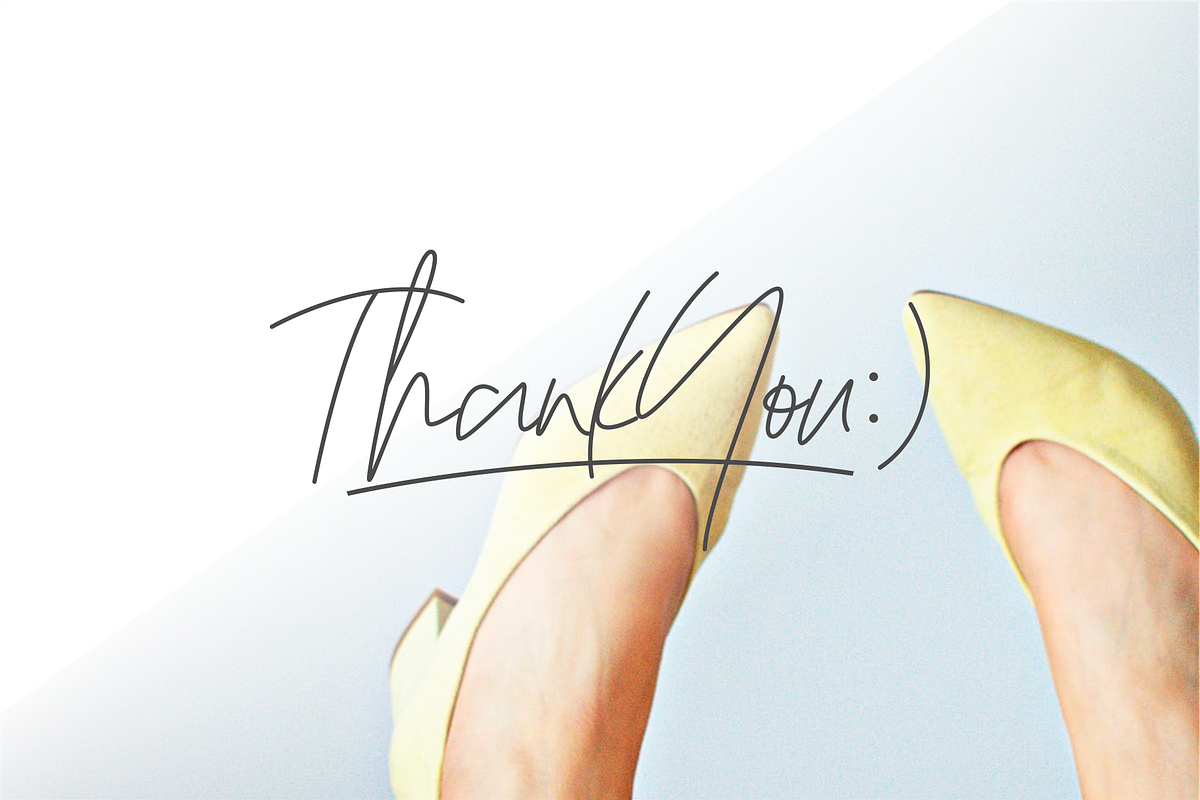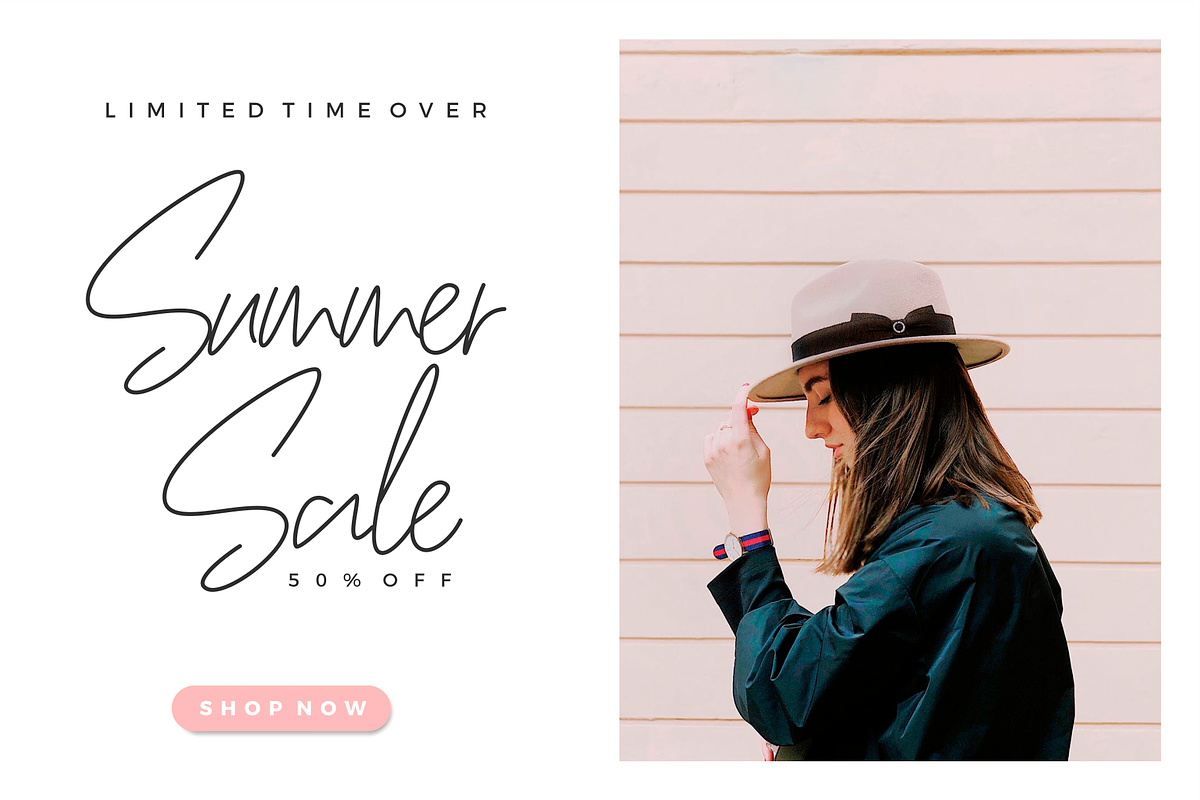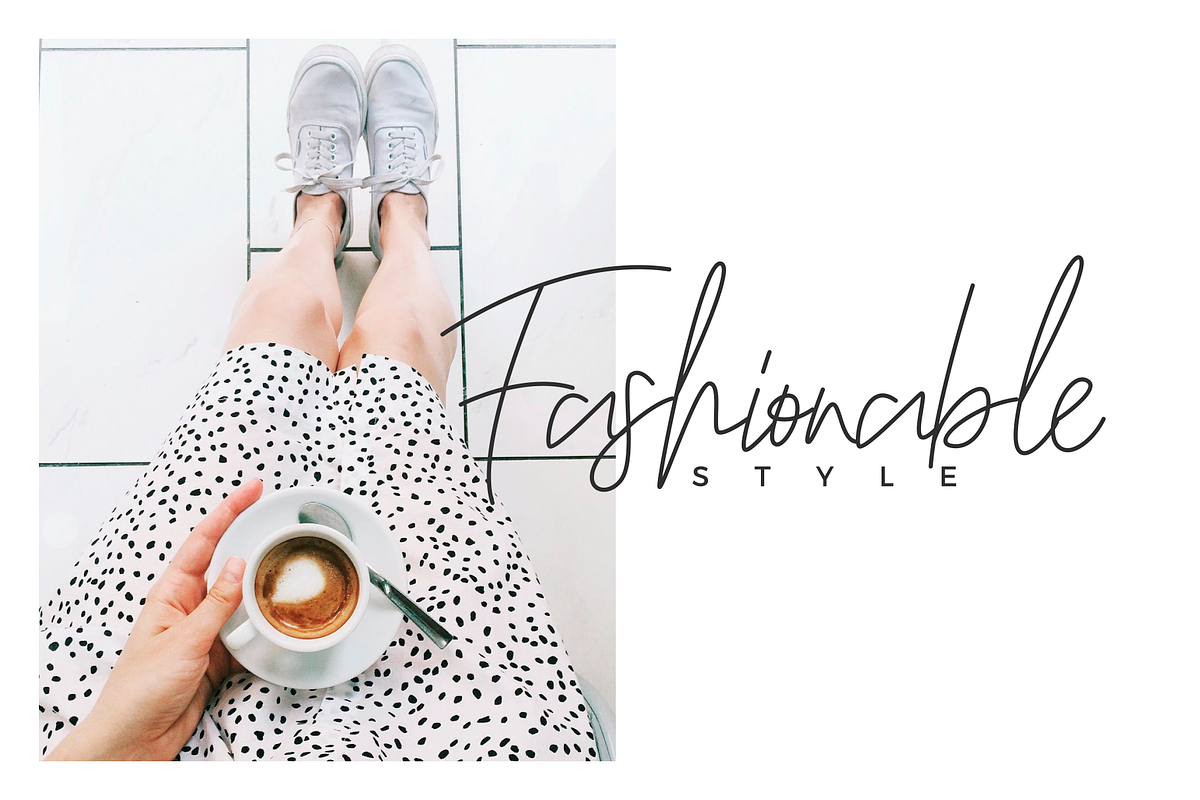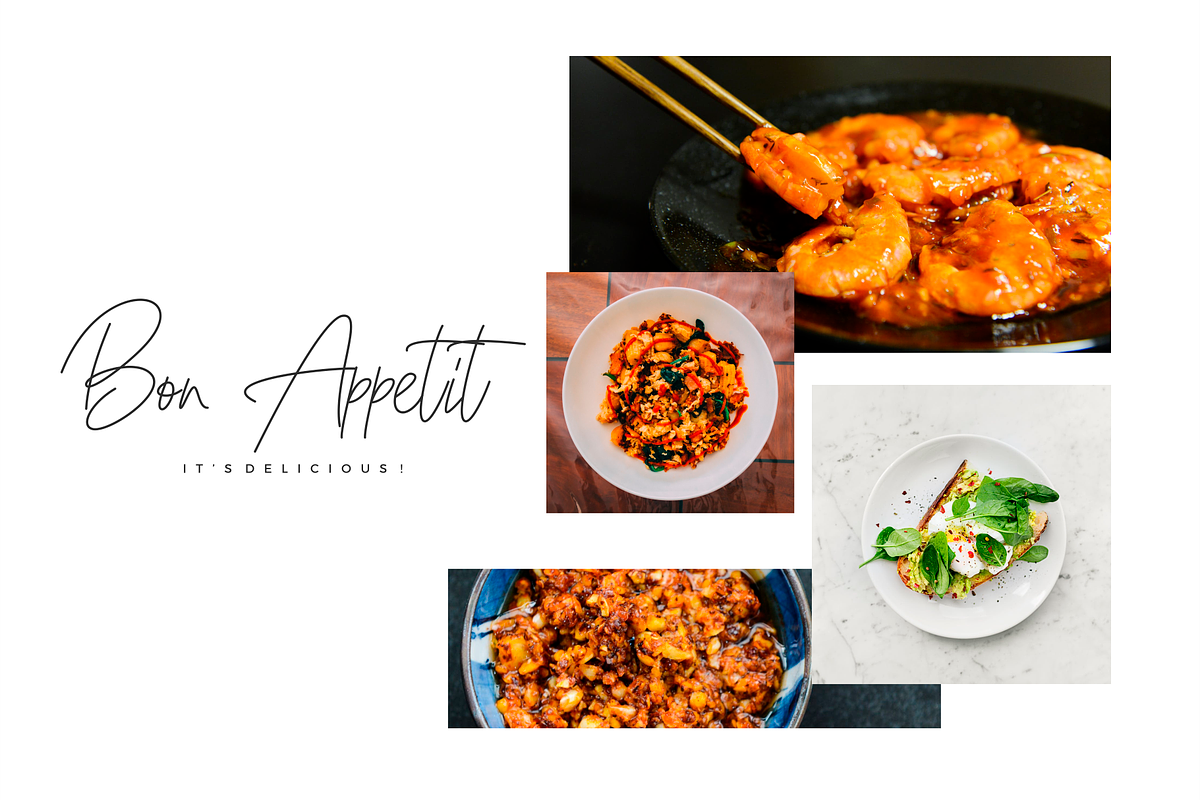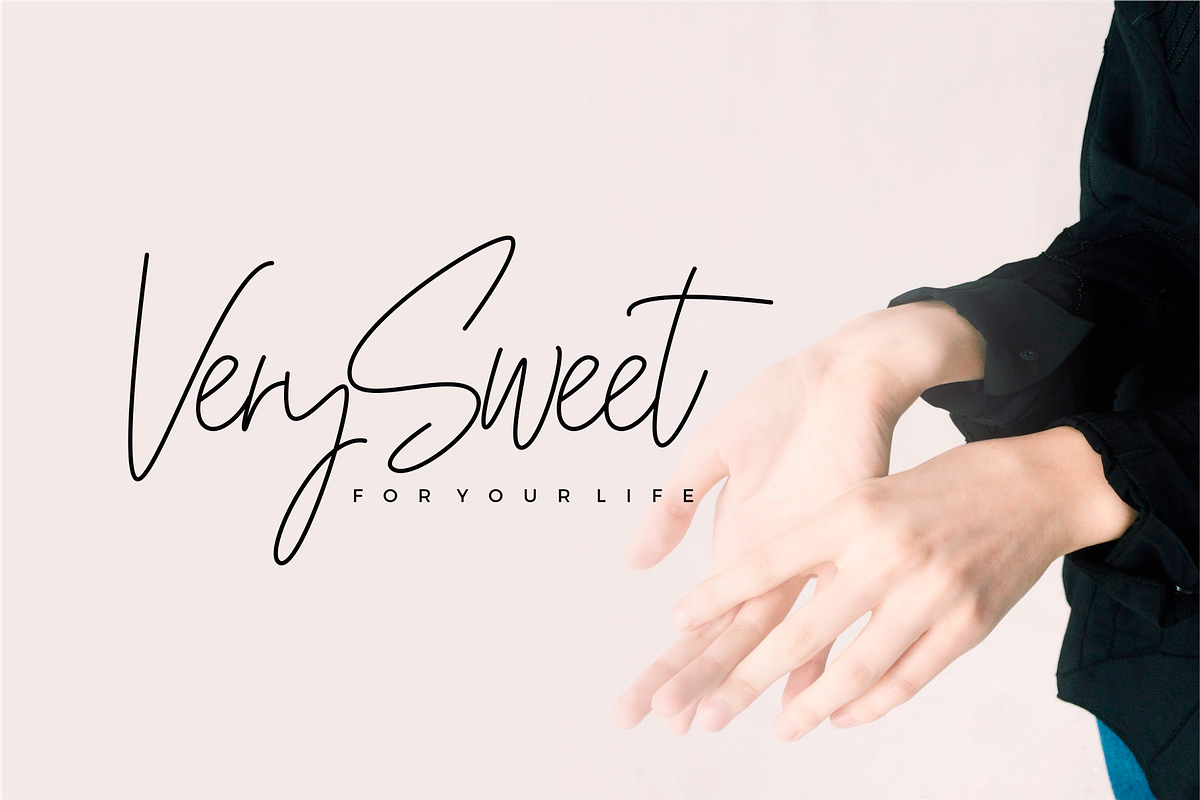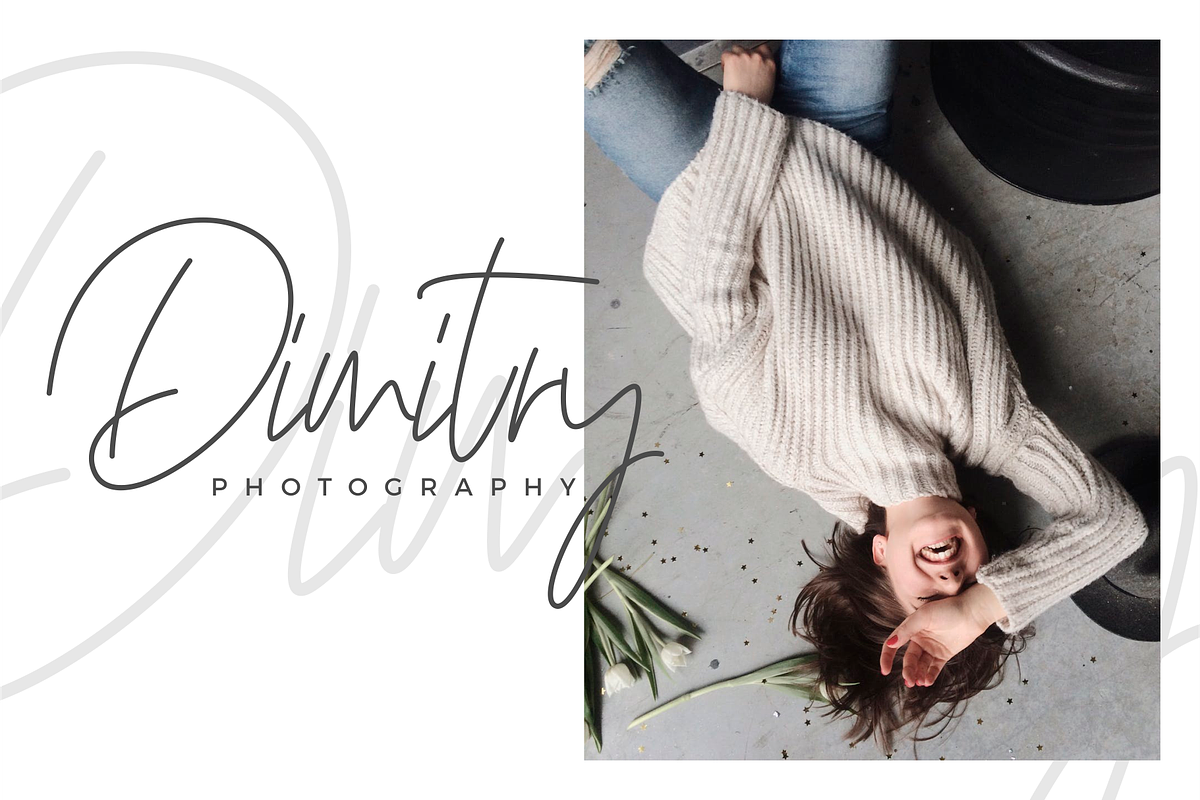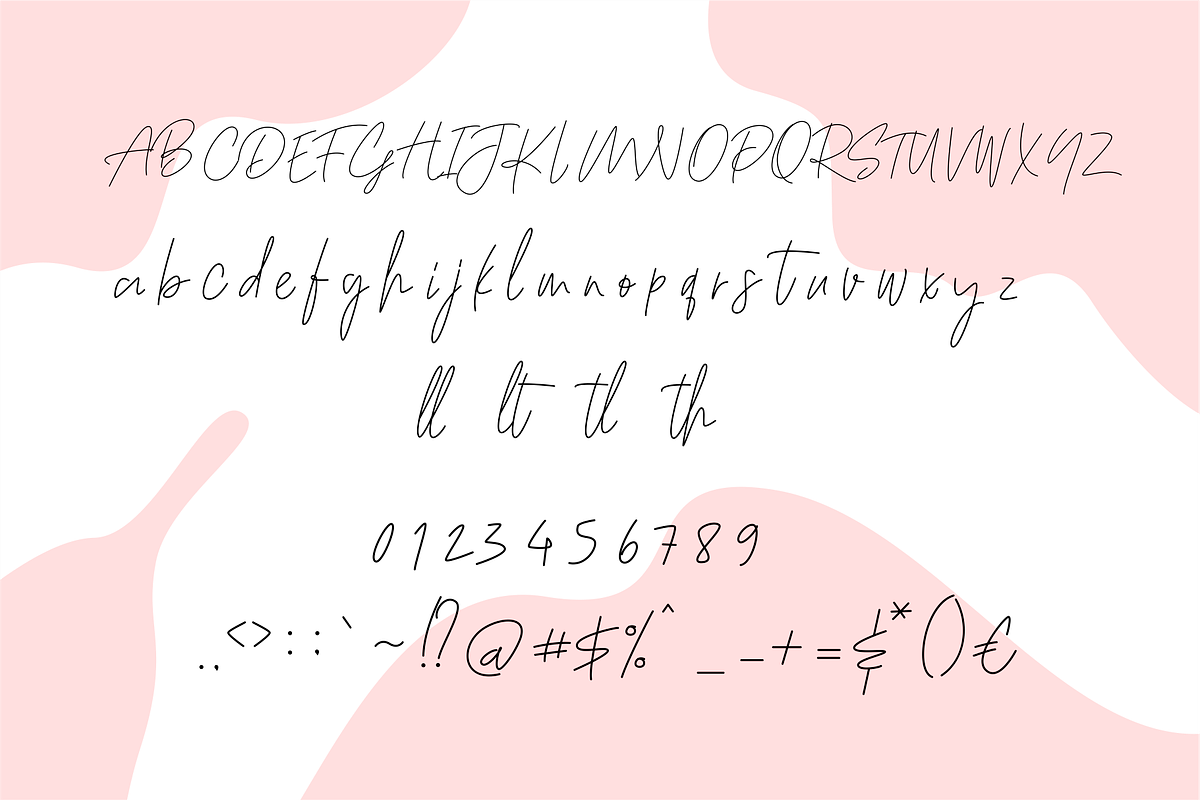
Pretty Girl Monoline Script Font
Pretty Girl is modern feminine font, every single letters have been carefully crafted to make your text looks beautiful. With modern script style this font will perfect for many different project ex: logo, photography, watermark, quotes, blog header, poster, wedding, branding, logo, fashion, apparel, letter, invitation, stationery, etc.
Pretty Girl Monoline Script Font by 24Design Studios fits naturally into Branding, posters, packaging, typography.